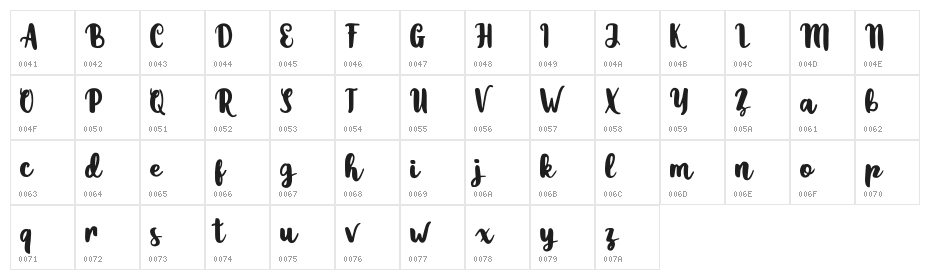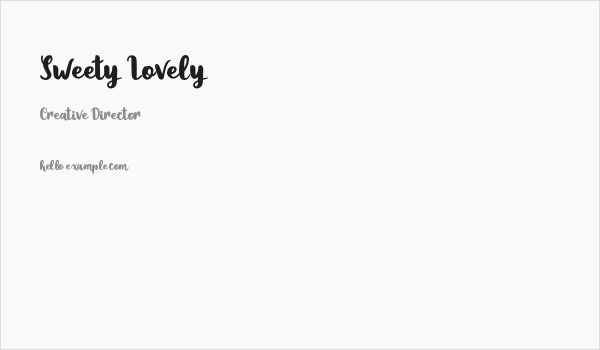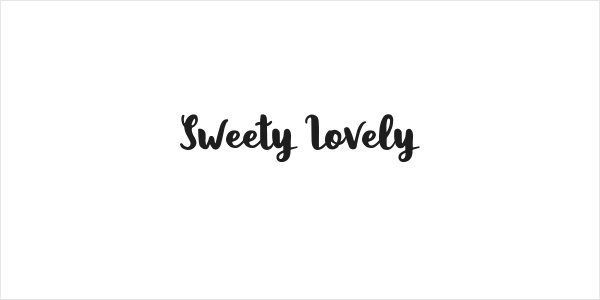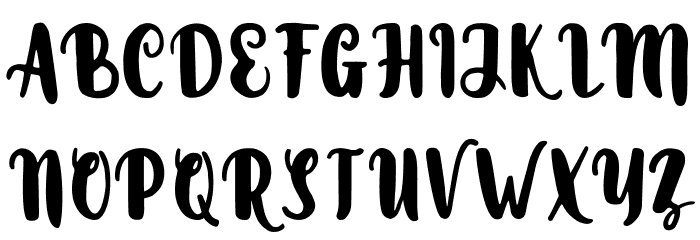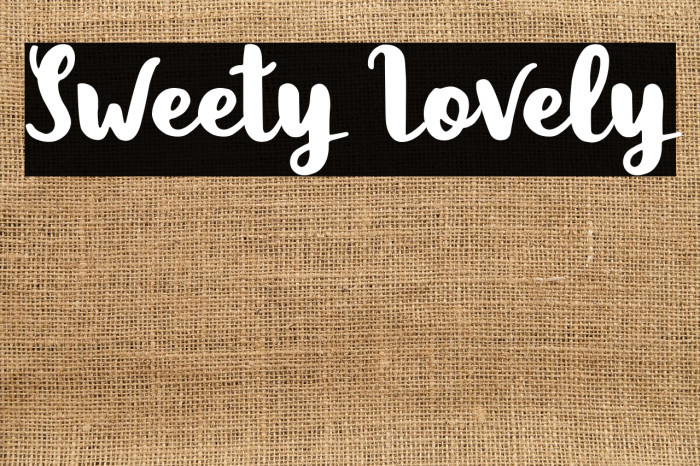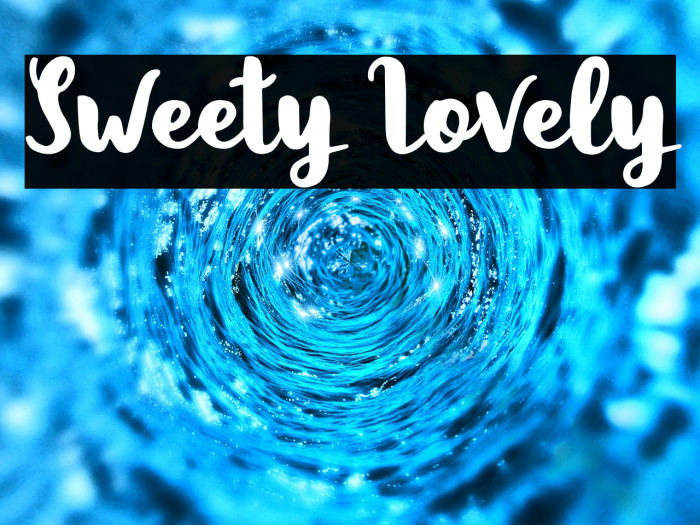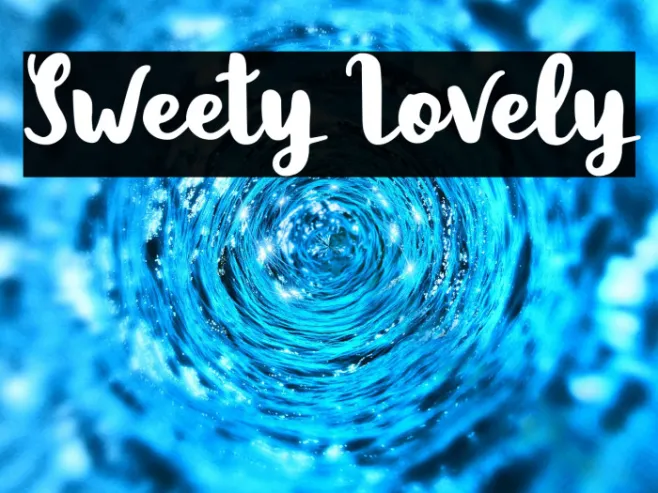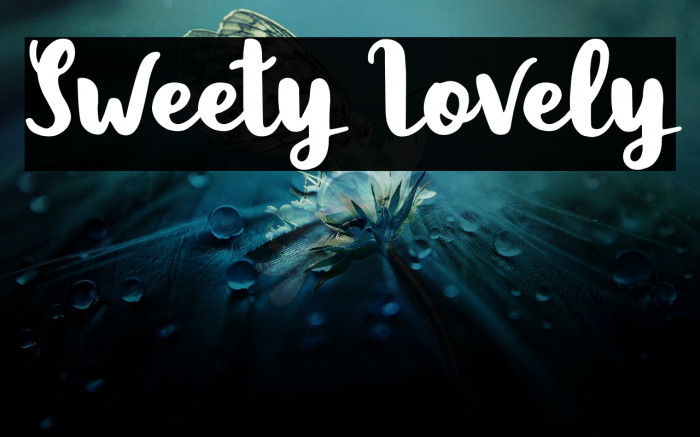
Sweety Lovely Font
Sweety Lovely Description
This font features a playful and whimsical script style, characterized by its bold, flowing strokes and smooth curves. The letters are interconnected, giving a sense of continuity and fluidity. The uppercase letters are slightly more structured, while the lowercase letters exhibit a more casual, handwritten appearance. The overall design is lively and expressive, making it ideal for projects that require a touch of personality and charm. The font maintains a consistent weight throughout, ensuring readability while adding a decorative flair.
| Proposed Projects | Ideal for greeting cards, invitations, branding, and playful logos. |